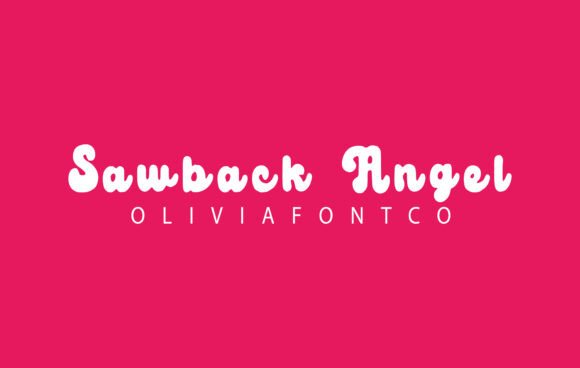
Sawback Angel Font: Elevate Your Designs with a Romantic Touch
In the world of typography, fonts play a crucial role in conveying the tone and personality of a design. Among the numerous fonts available, Sawback Angel Font stands out for its unique blend of authenticity and romanticism. This handwritten font is expertly designed to capture the hearts of designers and crafty individuals alike, offering a versatile and elegant solution for various creative projects.
The Essence of Sawback Angel Font
Sawback Angel Font is an authentic handwritten font that exudes a romantic touch, making it perfect for designs that require a personal and emotional connection. Its unique characteristics and flowing lines give it a distinctive appearance that sets it apart from other fonts. Whether you’re working on a wedding invitation, a social media post, or a branding project, Sawback Angel Font is sure to add a touch of elegance and sophistication.
Key Features of Sawback Angel Font
- Authentic Handwritten Style: Sawback Angel Font boasts an authentic handwritten style that gives it a personal and emotional appeal.
- Romantic Touch: The font’s romantic touch makes it perfect for designs that require a touch of elegance and sophistication.
- Legibility: Sawback Angel Font is highly legible, making it suitable for use as both title and body text.
- Versatility: This font can be used for a wide range of designs, including magazine headlines, social media posts, branding, wedding invitations, cards, and more.
Design Possibilities with Sawback Angel Font
Sawback Angel Font offers a world of creative possibilities, making it an excellent addition to any designer’s toolkit. Here are some design ideas where this font can shine:
Wedding Invitations and Stationery
Sawback Angel Font is perfect for wedding invitations, save-the-date cards, and other stationery designs. Its romantic touch and elegant appearance make it an ideal choice for couples looking to add a personal touch to their wedding stationery.
Social Media Graphics
With Sawback Angel Font, you can create stunning social media graphics that capture the attention of your audience. Use it to design eye-catching Facebook posts, Instagram stories, and Twitter headers that reflect your brand’s personality.
Branding and Packaging
Sawback Angel Font can be used to create a cohesive brand identity that exudes elegance and sophistication. Use it for logos, business cards, and packaging designs to give your brand a unique and memorable look.
Magazine Headlines and Articles
This font is also suitable for magazine headlines and articles, adding a touch of elegance and refinement to your publication. Use Sawback Angel Font to create eye-catching headlines and engaging body text that keeps your readers hooked.
Why Choose Sawback Angel Font?
With so many fonts available, why should you choose Sawback Angel Font for your designs? Here are some compelling reasons:
Unique and Authentic
Sawback Angel Font offers a unique and authentic handwritten style that sets it apart from other fonts. Its romantic touch and elegant appearance make it a standout choice for designers looking for something special.
Highly Legible
This font is highly legible, making it suitable for use as both title and body text. Its clear and flowing lines ensure that your message is conveyed effectively, regardless of the design.
Versatile and Adaptable
Sawback Angel Font is highly versatile and adaptable, making it perfect for a wide range of designs. Whether you’re working on a wedding invitation or a social media post, this font can be used to create stunning and effective designs.
Sawback Angel Font is a beautiful and elegant handwritten font that offers a unique blend of authenticity and romanticism. Its legibility, versatility, and adaptability make it a valuable addition to any designer’s toolkit. Whether you’re working on a wedding invitation, social media post, or branding project, Sawback Angel Font is sure to elevate your designs and capture the hearts of your audience.